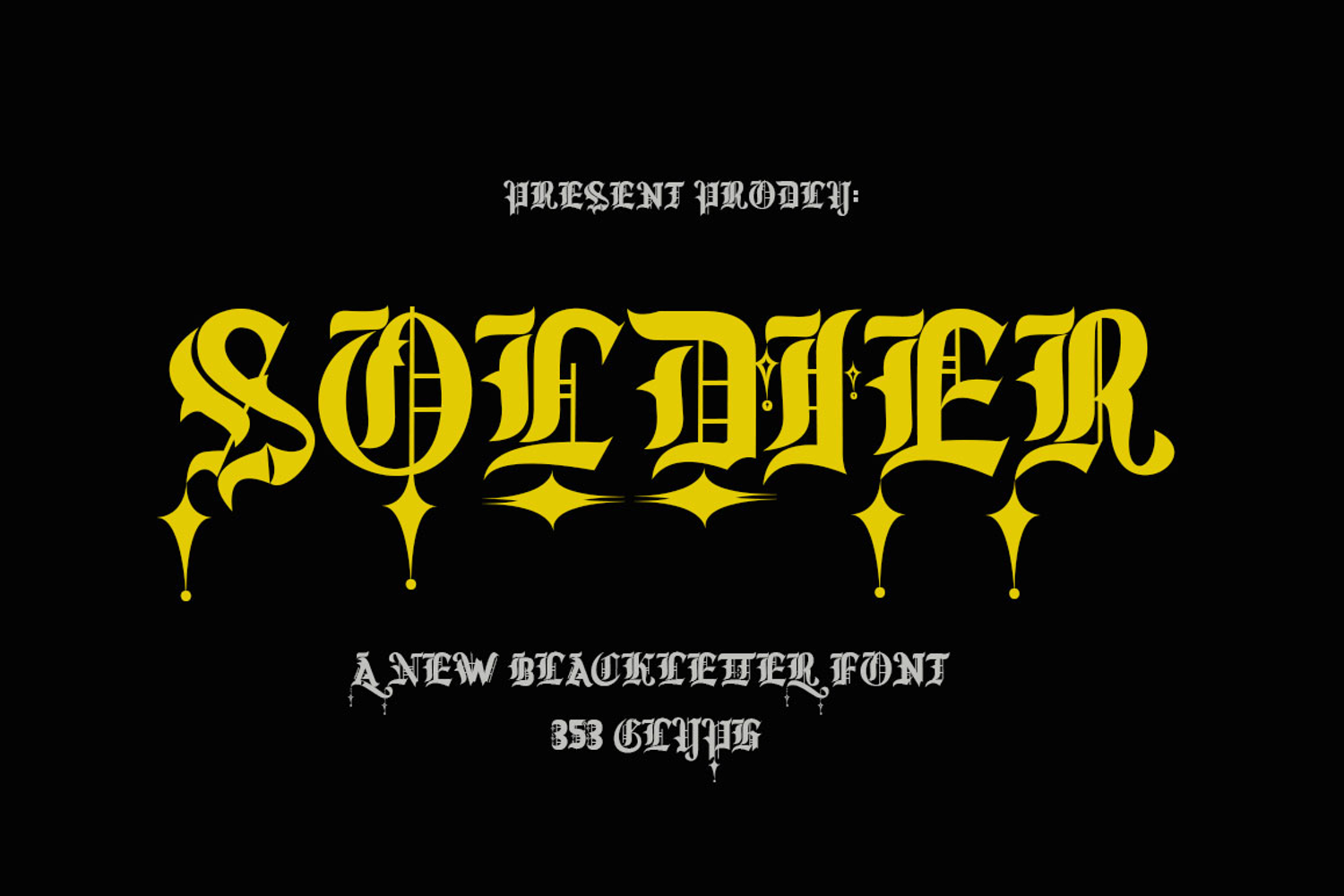
Soldier_Blackletter
Introducing the Soldier Font. Are you looking for a decorative font with bold handles and a medieval gothic feel? We're here to help! Try downloading our Soldier Font. It's suitable for various purposes such as books, logos, print media, games, events, music, invitations, and more :)
- Basic Latin A-Z
- Numbers
- Alternate Characters